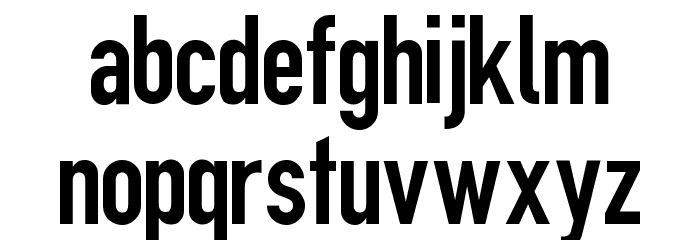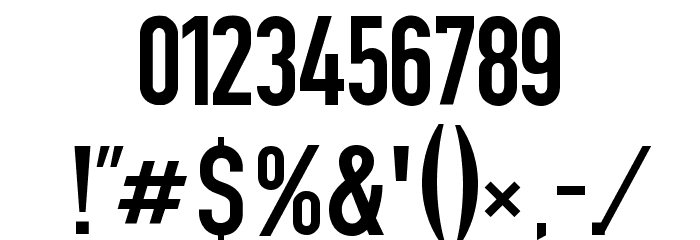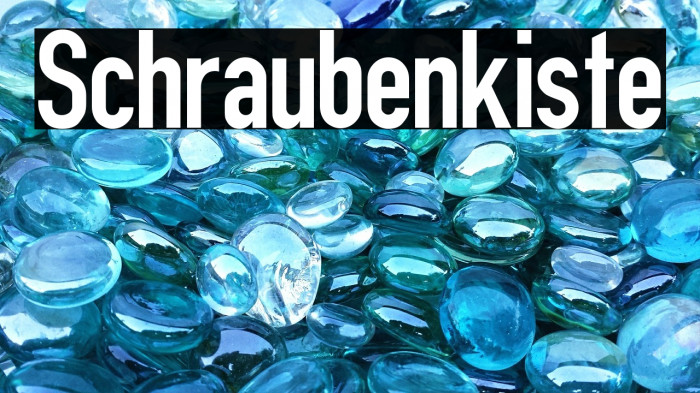
Schraubenkiste Font
This typeface features a bold and modern sans-serif design, characterized by its clean lines and geometric shapes. The uppercase letters are tall and imposing, while the lowercase letters maintain a consistent height, offering a balanced and harmonious appearance. The numbers are clear and easily distinguishable, making them suitable for a variety of applications. Special characters are well-integrated, maintaining the overall aesthetic of the font. The design is versatile, suitable for both digital and print media, and can be used to create a strong visual impact.
A bold, modern sans-serif font with clean lines and geometric shapes.